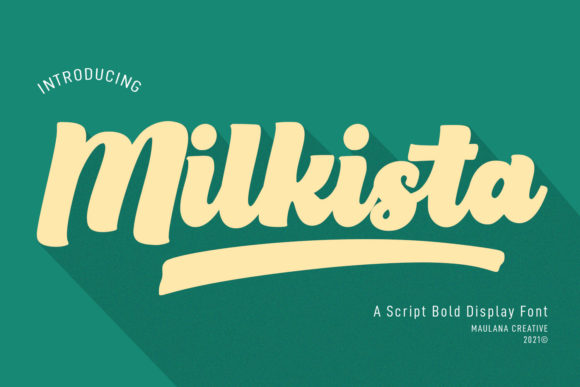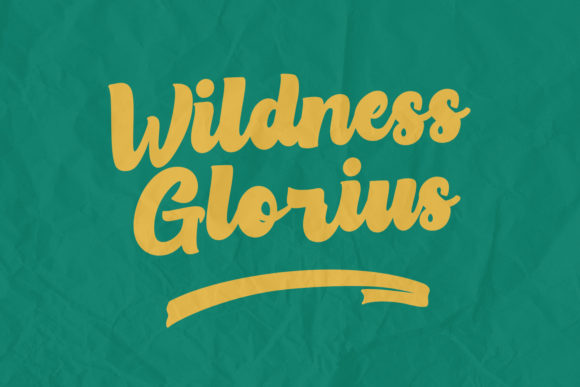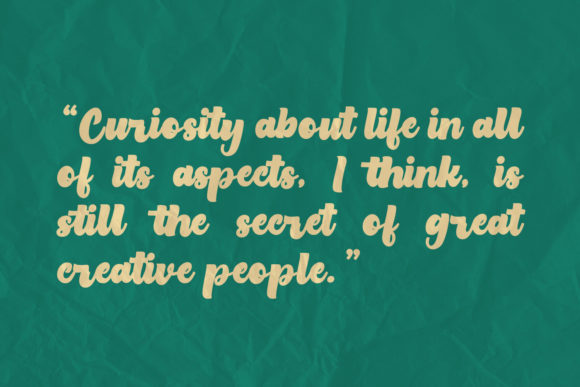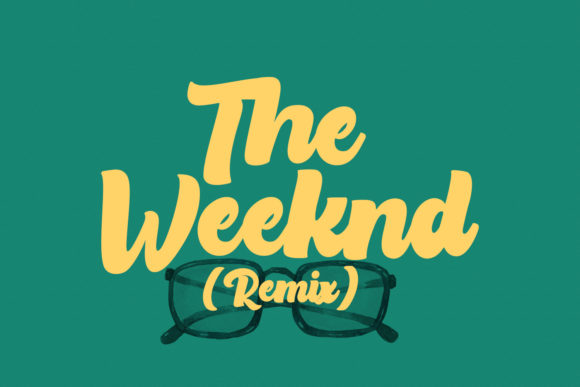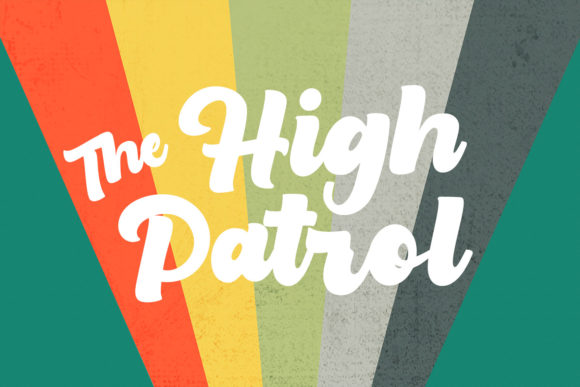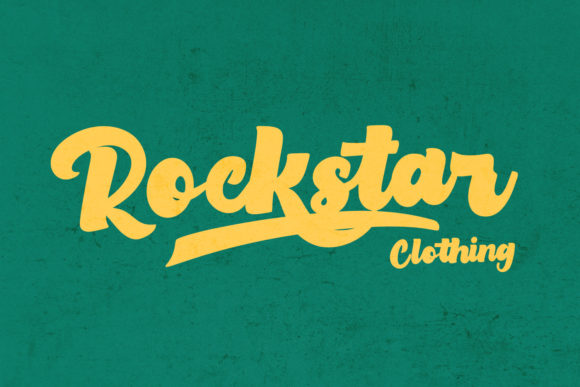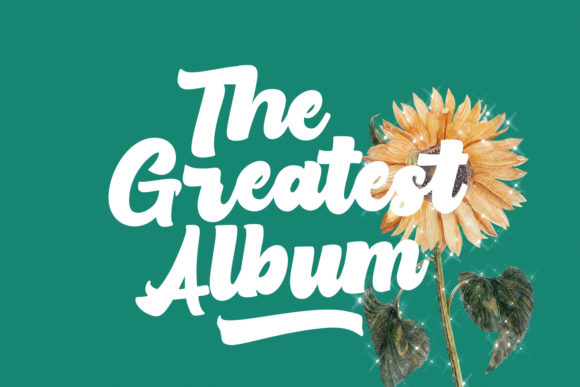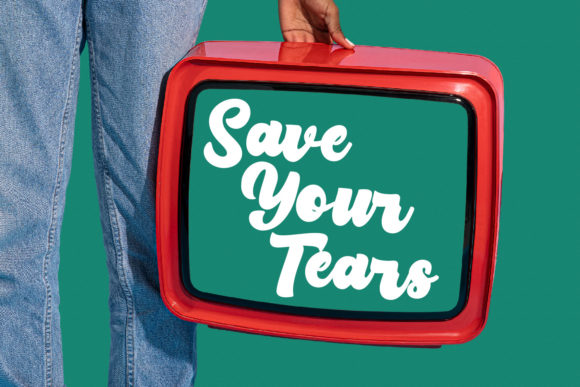
Milkista Script Font
About Milkista Script Font
Milkista Script is a thick lettered, chic and trendy handwritten font. No matter the topic, this font will be an incredible asset to your fonts’ library, as it has the potential to elevate any creation.